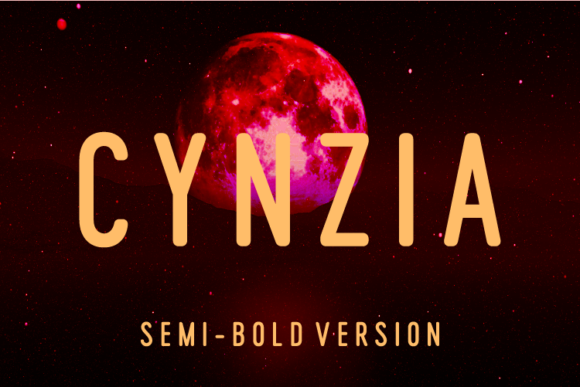
Behold Cynzia Semi-Bold, the font that dances on the tightrope between delicate finesse and bold charisma. Its condensed geometric structure, adorned with rounded corners reminiscent of a crescent moon, exudes an aura of sophistication and modernity.
Cynzia Semi-Bold draws inspiration from the circular forms found on the crests and troughs of letters in geometric sans serifs. However, its distinct feature lies in its condensed proportions, achieved through the incorporation of straight sides. This ingenious design decision grants Cynzia Semi-Bold an air of sturdiness and a compact footprint, making it an economical choice for a wide array of design projects.
With Cynzia Semi-Bold as your typographic companion, you can infuse your designs with a harmonious blend of softness and sharpness. Its versatility shines across a vast spectrum of creative endeavors, from branding and marketing materials to web design and editorial layouts.
Immerse yourself in the world of Cynzia Semi-Bold and discover a font that transcends the boundaries of ordinary typography. Its enchanting allure will cast a spell on your audience, captivating their attention and leaving them yearning for more.